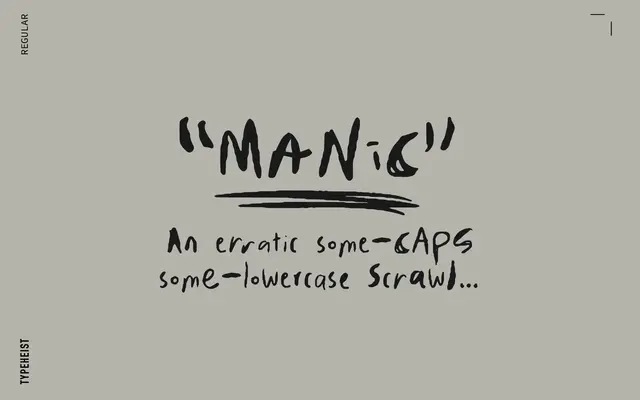
Messy Font Bundle
The bundle consists of five handwriting fonts described as messy and handcrafted, placing them squarely in the informal script/handwriting category.